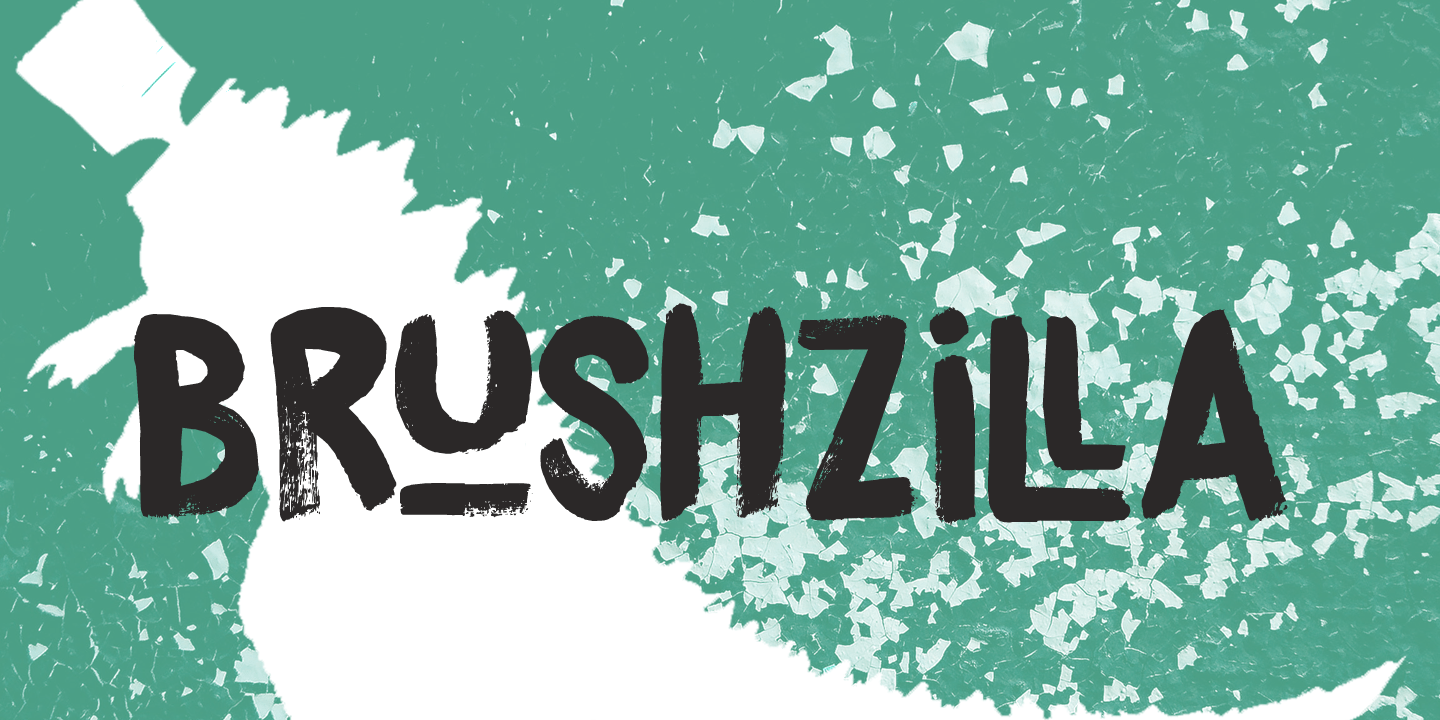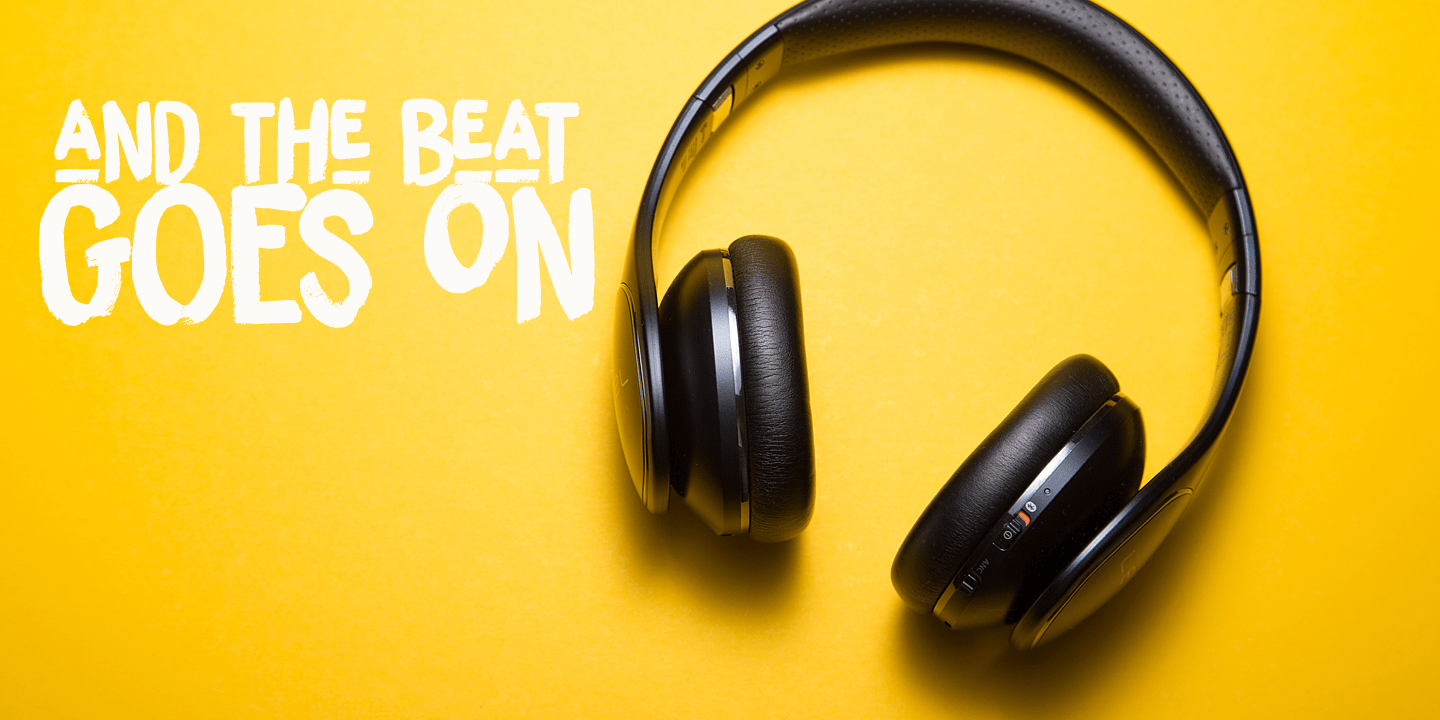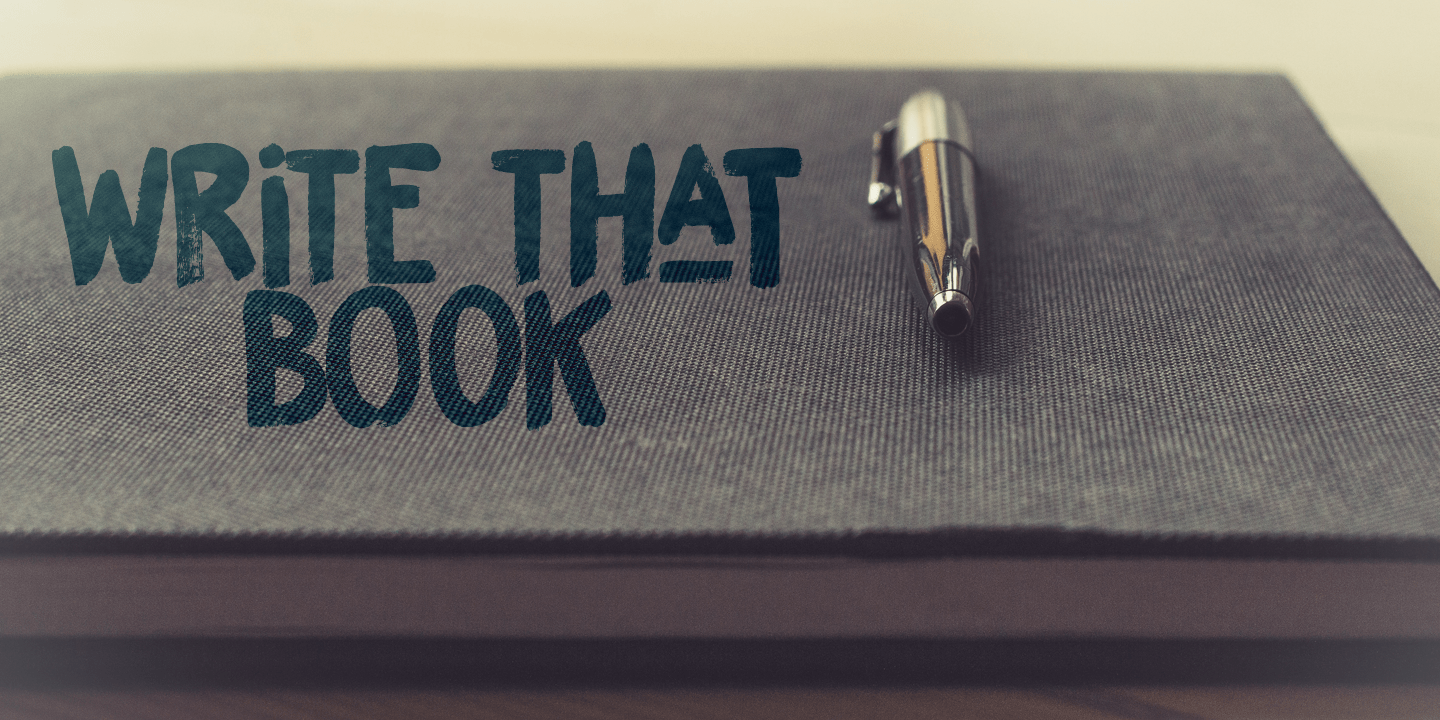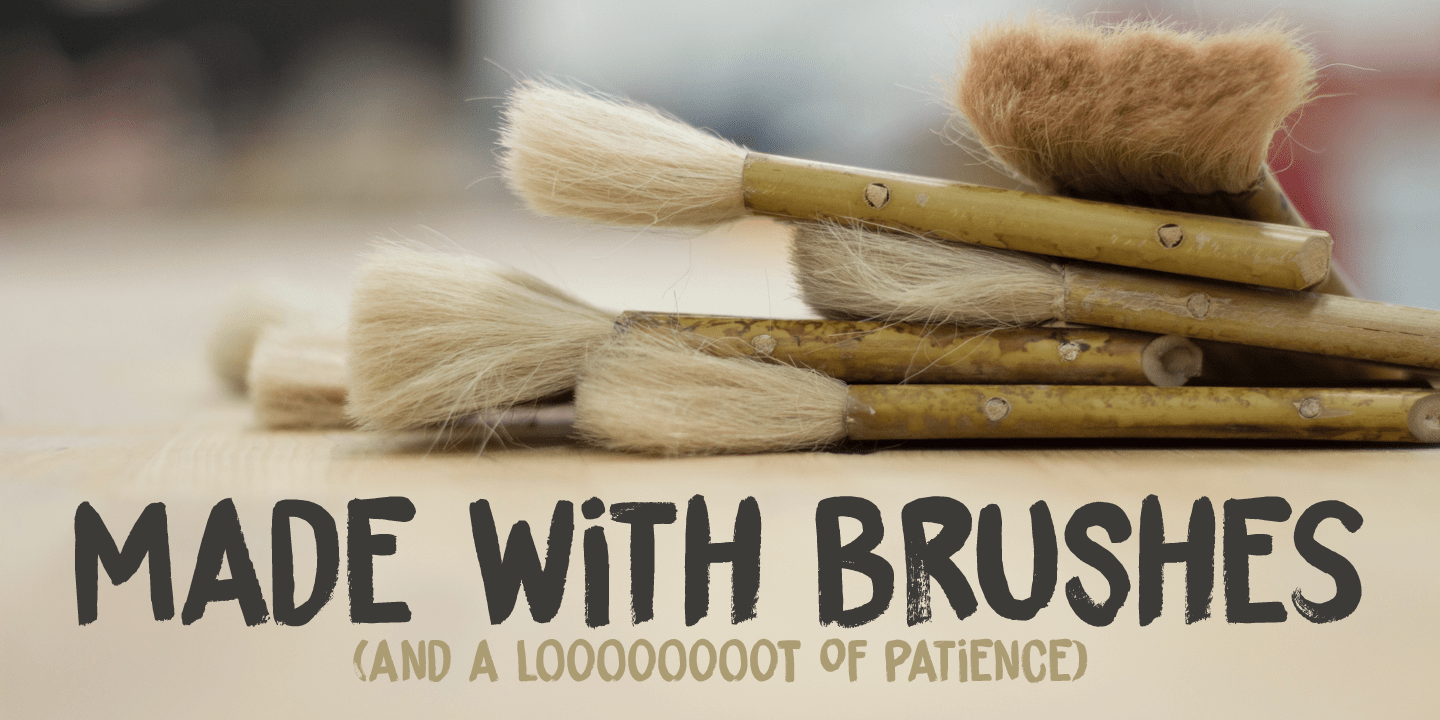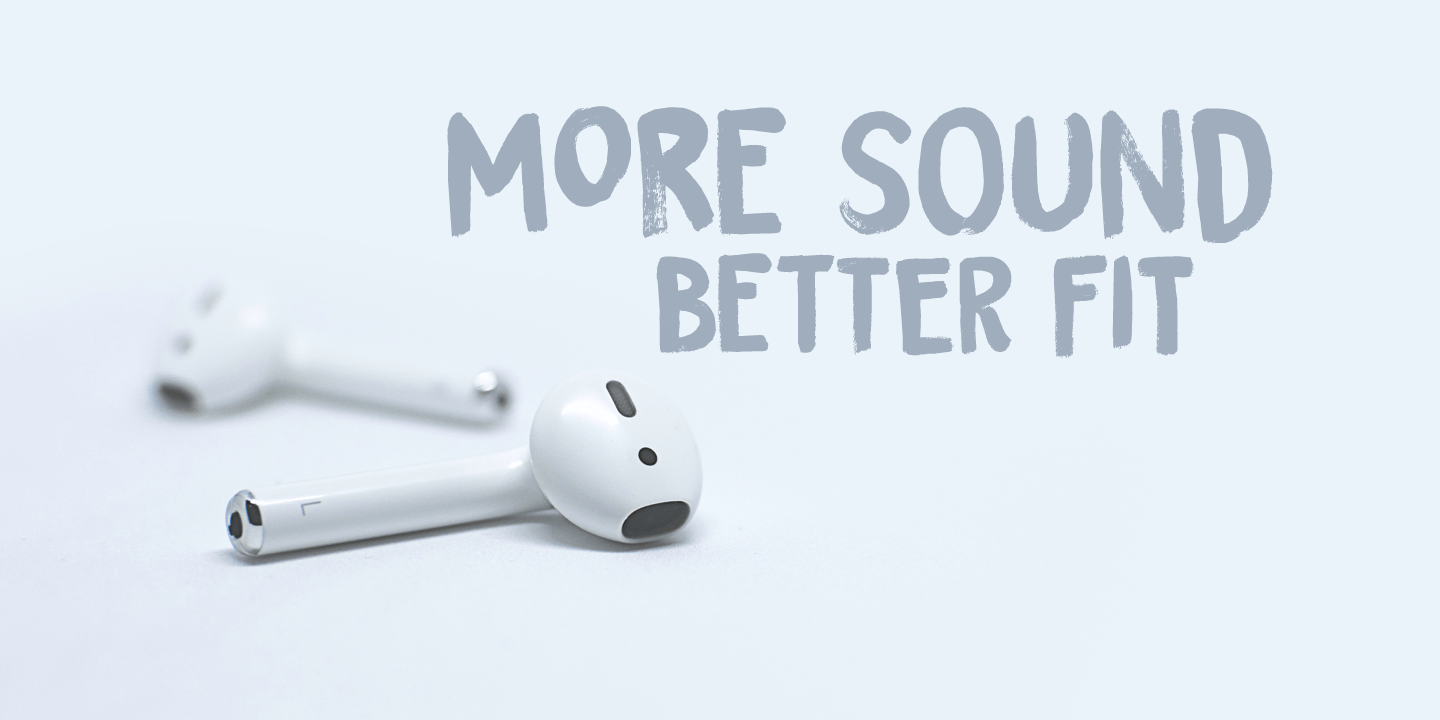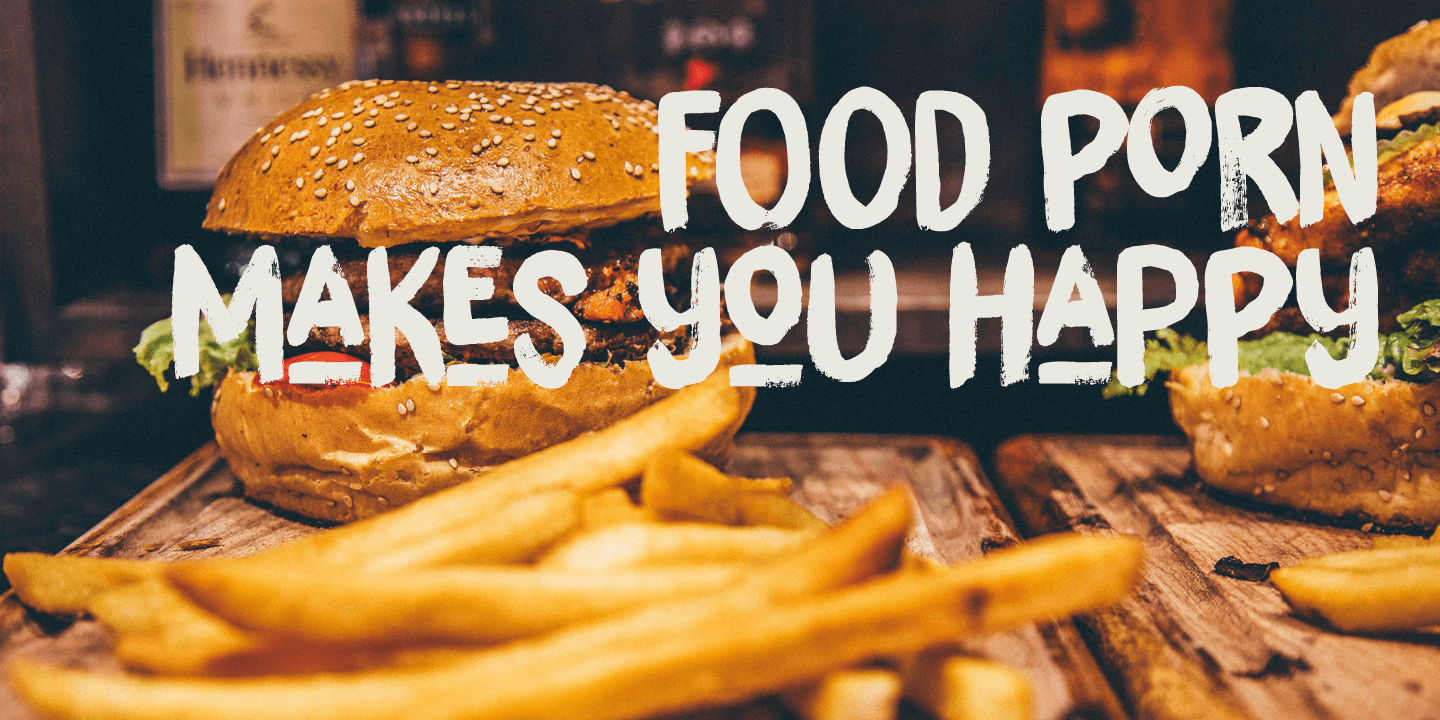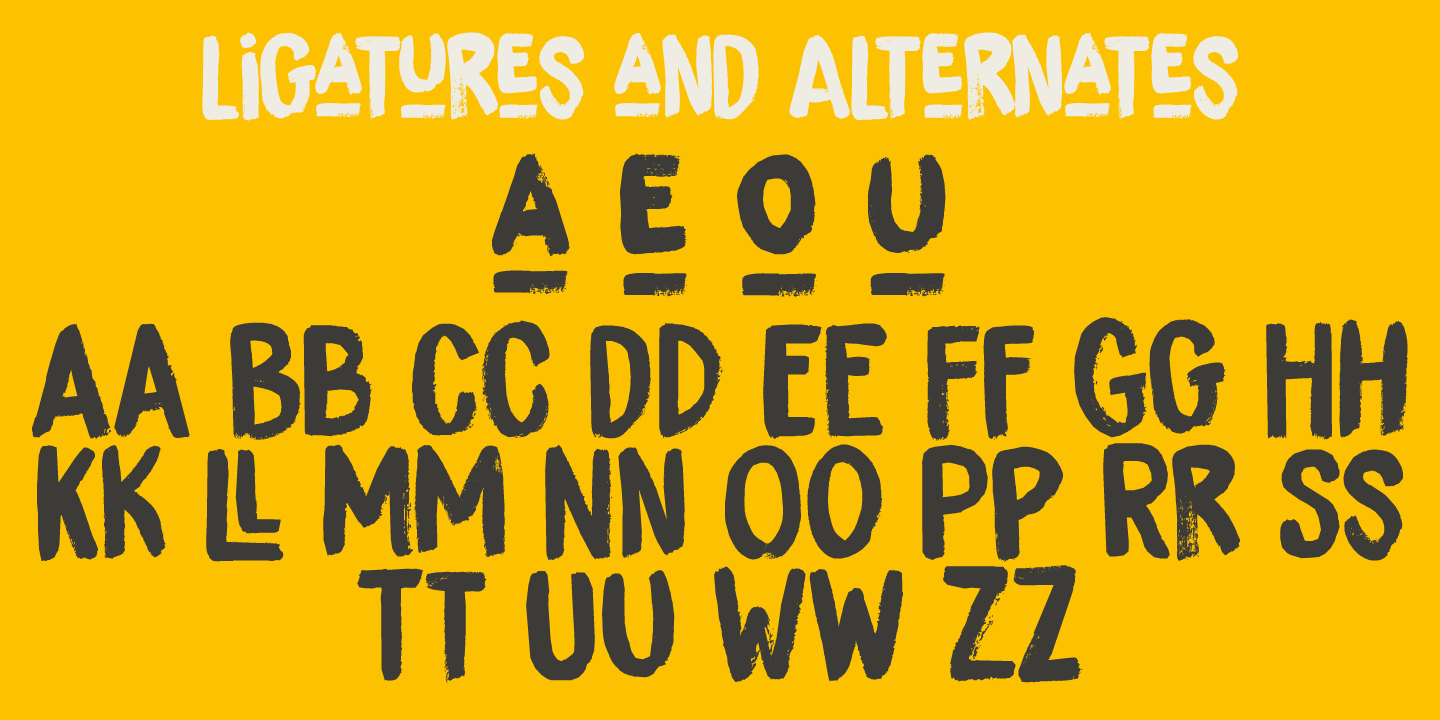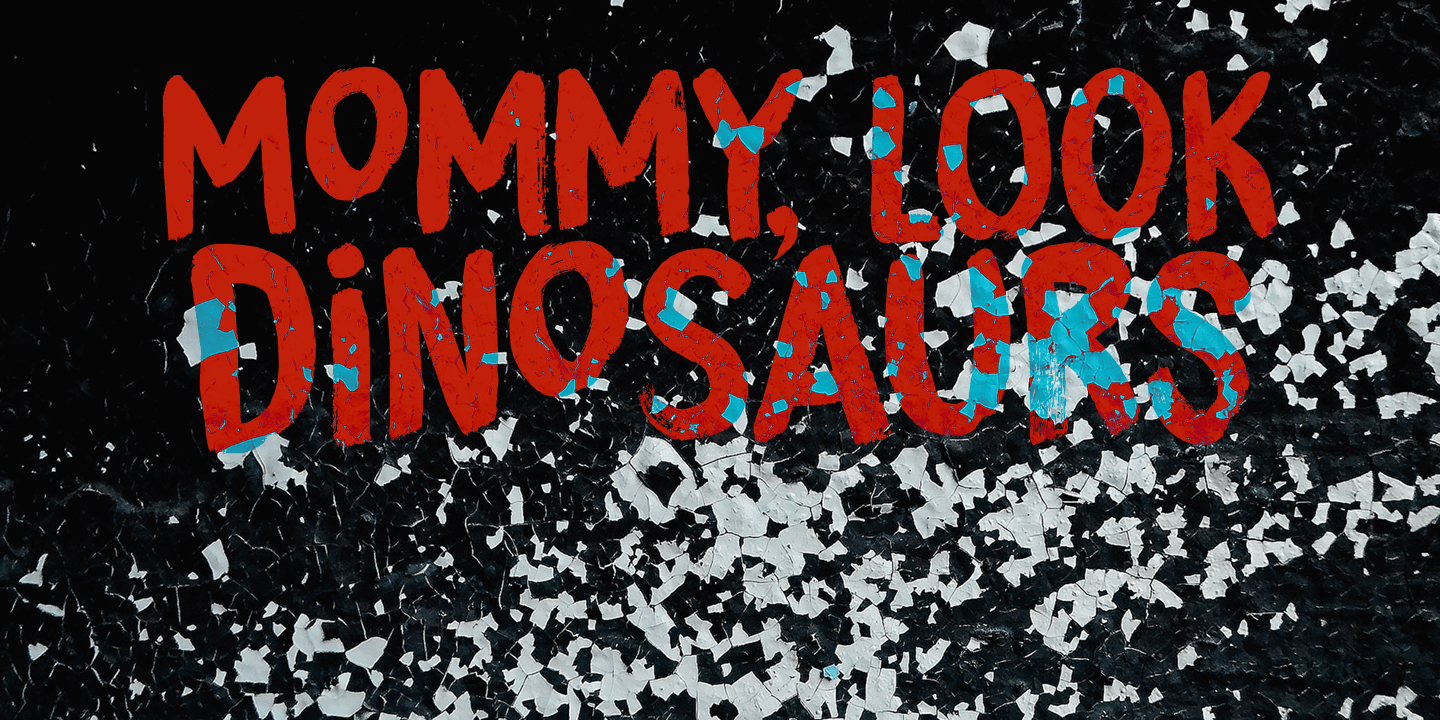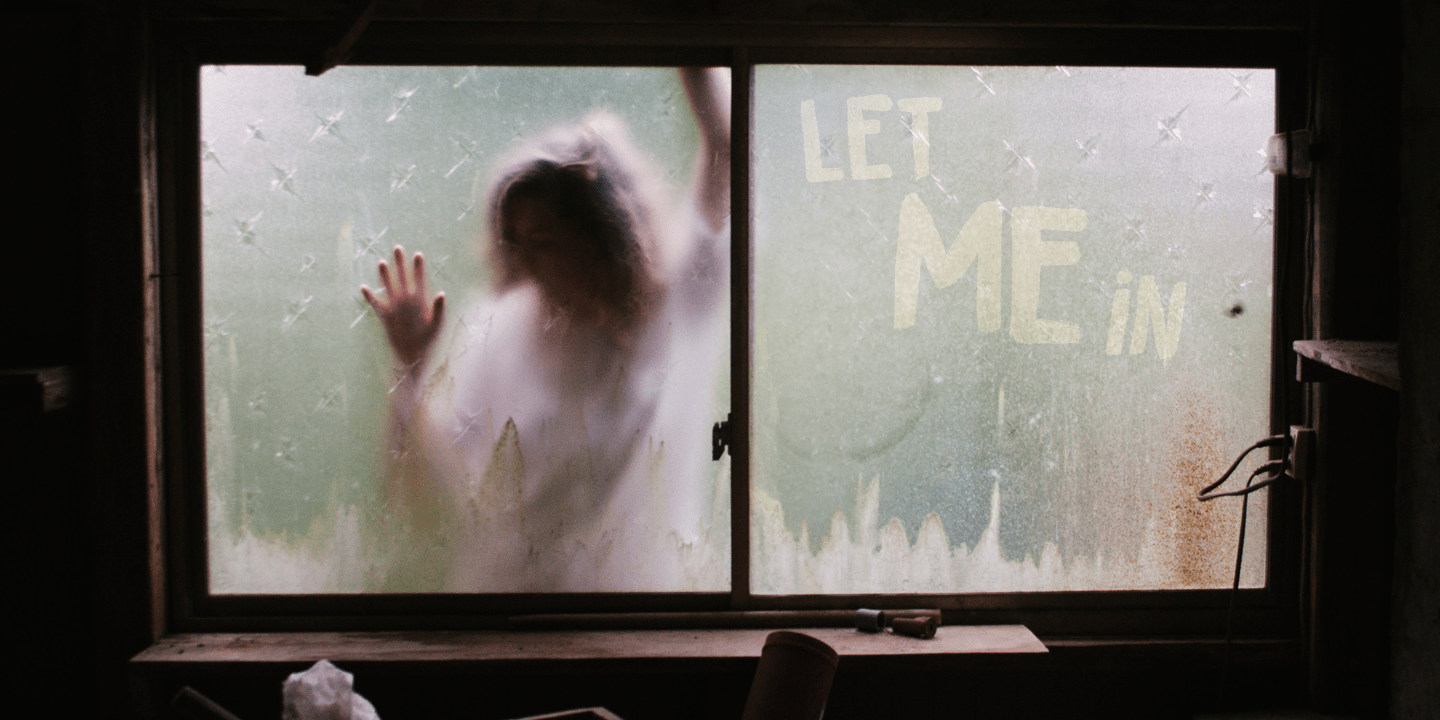
Brushzilla
Brushzilla is a handmade brush font with a bite: it feeds off the creative energy from the depths of your mind and transforms it into something outstanding. Work with it, not against it. Ride the wave and let it take you by the hand. You may fear it at first sight, but once you get to know it, you'll find that this beast will refresh your creative senses. Comes with some gorgeous alternate glyphs, double letter ligatures and a whole lotta diacritics.